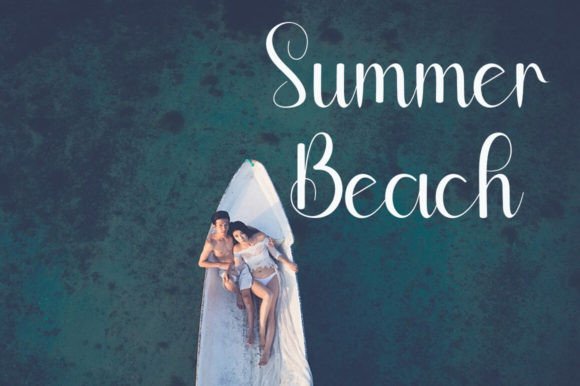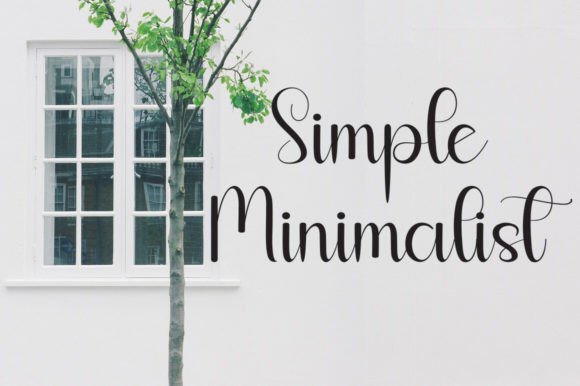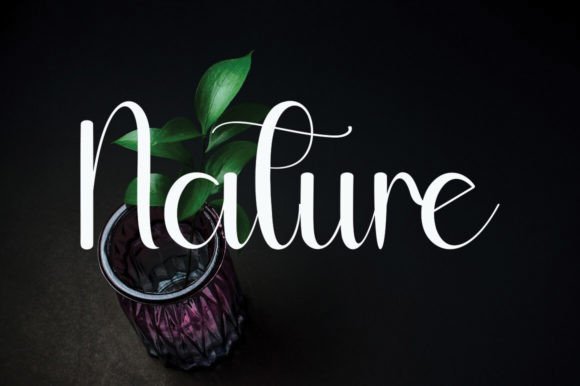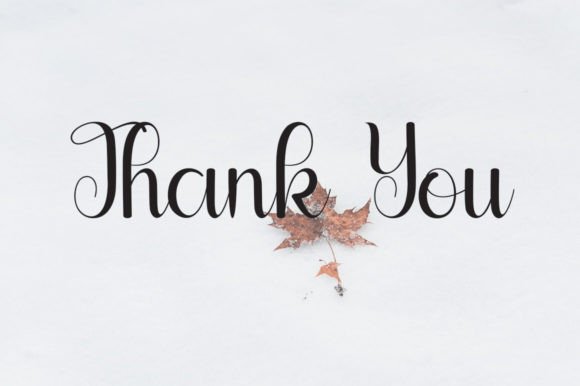
The Enchanting Disney Font: A Designer’s Delight
I still remember the time I was working on a project for a children’s party, and my client asked me to create a custom invitation that would transport their guests to a magical world. I spent hours scouring the internet for the perfect font, and then I stumbled upon the Disney font. Its whimsical elegance and handwritten, cursive style instantly captured my attention, and I knew I had found the perfect fit. In this article, I’ll share with you my love for the Disney font, its features, and how to use it to add a touch of joyful romance to your creative endeavors.
As a designer, I’ve had the pleasure of working with the Disney font on various projects, and here’s what I think:
- ✨ Whimsical elegance: The Disney font has a beautifully organic, handwritten feel that’s perfect for creating a sense of wonder and enchantment.
- ✅ Versatility: This font is incredibly versatile and can be used for a wide range of projects, from subtle design accents to more curated focus points.
- 💫 Attention-grabbing: The Disney font has a way of capturing attention and breathing new life into any project.
However, I do have to mention a few quirks:
- 🤔 Limited use in body text: While the Disney font is perfect for headings and titles, it may not be the best choice for body text due to its cursive nature.
- ⚠️ Kerning issues: As with any font, kerning can be a bit tricky, especially when using the Disney font in larger sizes.
The Story Behind the Disney Font
The Disney font has a rich history that dates back to the early days of Disney. According to legend, Walt Disney himself worked with a renowned typographer to create a custom font that would capture the essence of the Disney brand. The result was a beautifully elegant, handwritten font that has become synonymous with Disney magic.